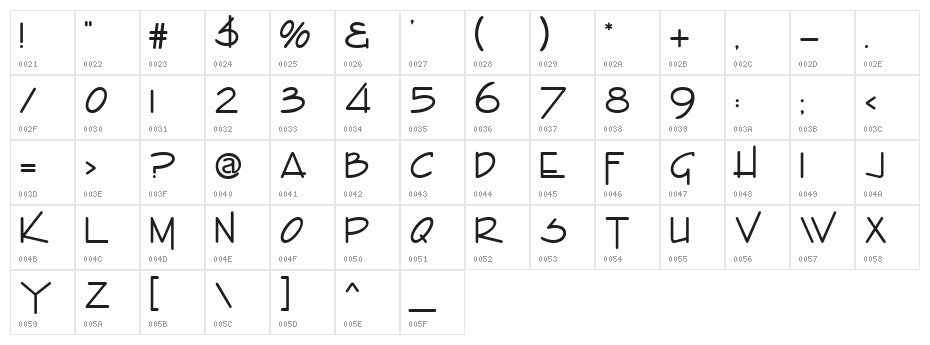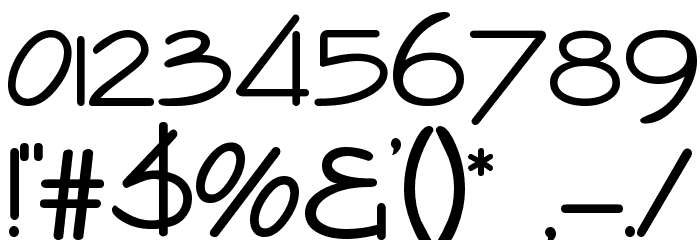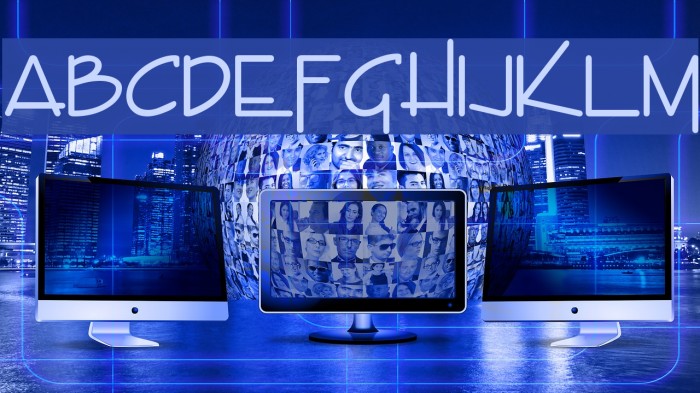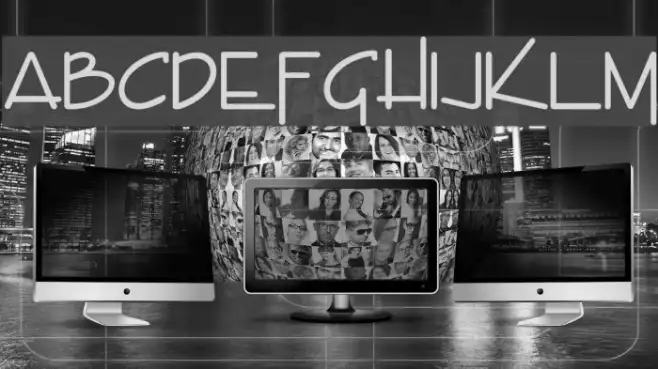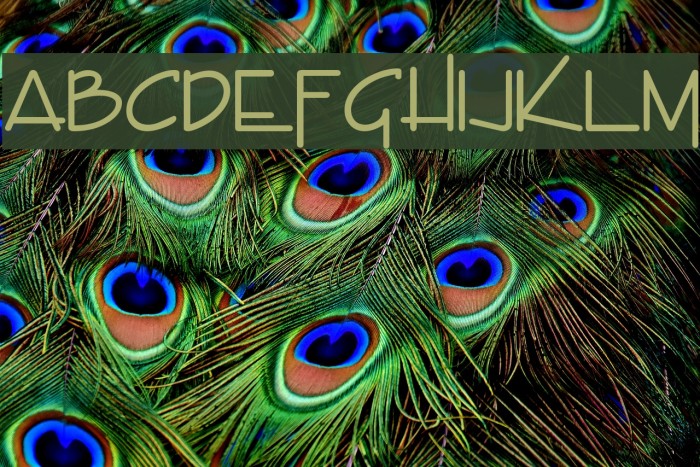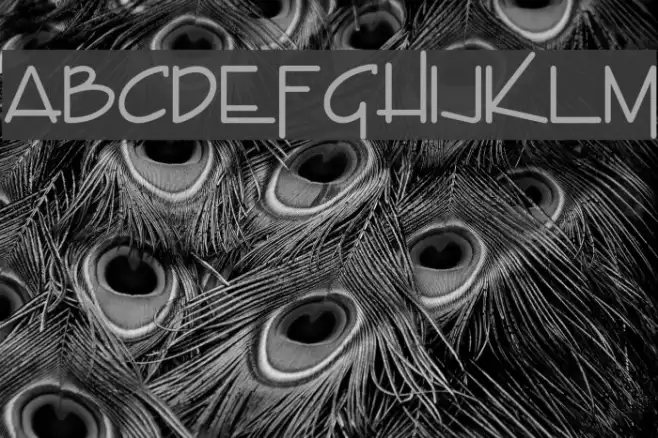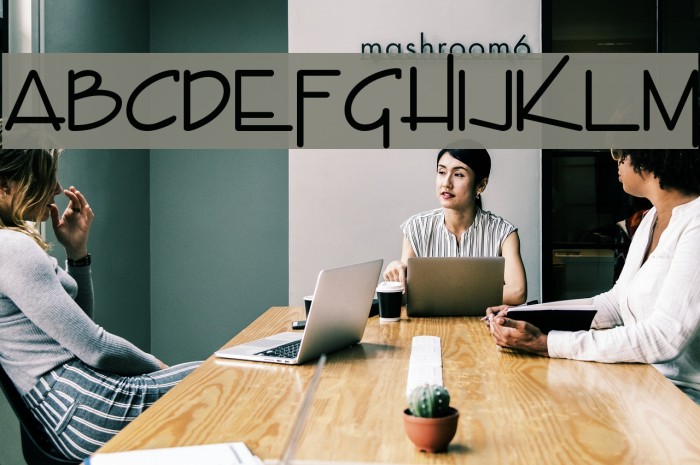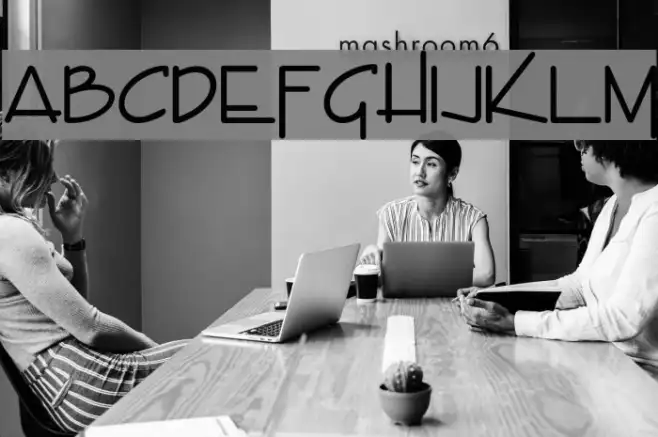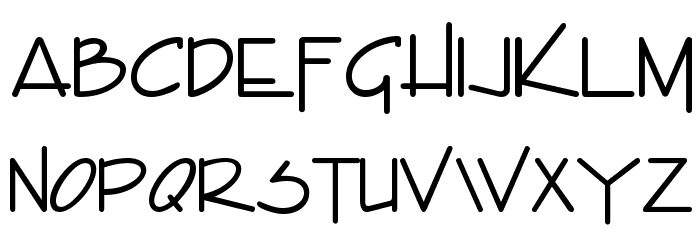
Encino Caps Font
Encino Caps Description
This font features a playful and casual handwritten style, characterized by its smooth, rounded edges and consistent stroke width. The uppercase and lowercase letters maintain a uniform height, contributing to a cohesive appearance. The numerals and special characters follow the same design principles, ensuring readability and a friendly aesthetic. Its informal nature makes it suitable for projects that require a personal touch or a relaxed vibe. The font's simplicity and clarity make it versatile for various design applications.
| Overall Style | Casual |
| Use Case | Headlines, Informal text, Branding |
| Proposed Projects | Ideal for greeting cards, children's books, casual branding, and social media graphics. |